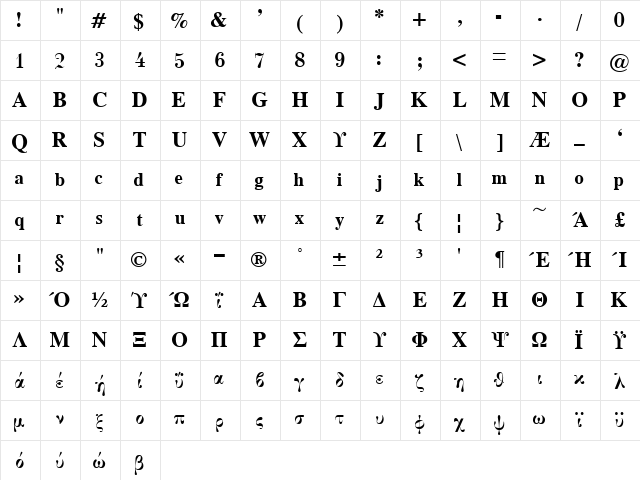
MgMemoriesApla Bold Font Preview
MgMemoriesApla Bold
Design Context for MgMemoriesApla Typeface
MgMemoriesApla offers clean, dependable letterforms without strong stylistic allegiance, making it a practical choice for designers who need flexibility. The heavy weight commands attention and anchors typographic hierarchies.